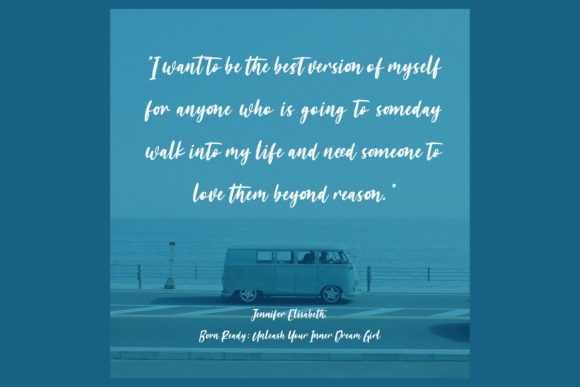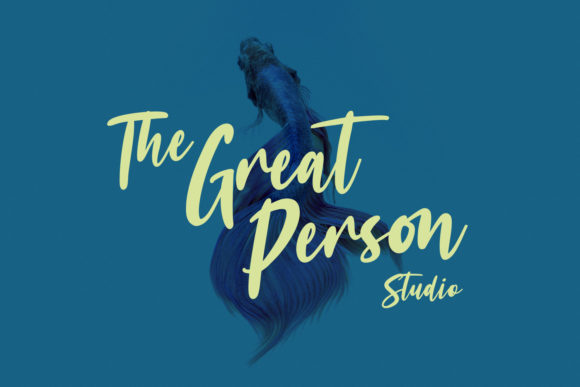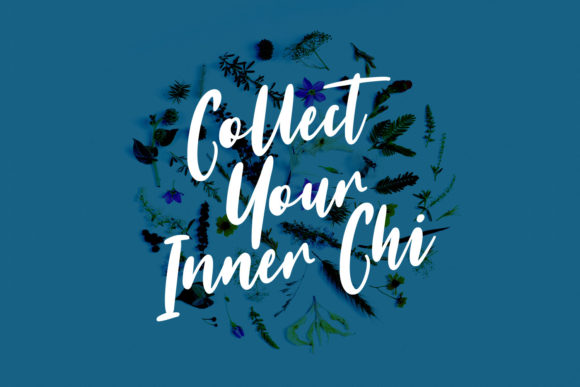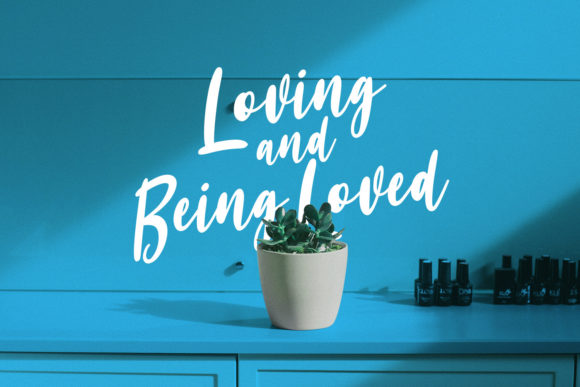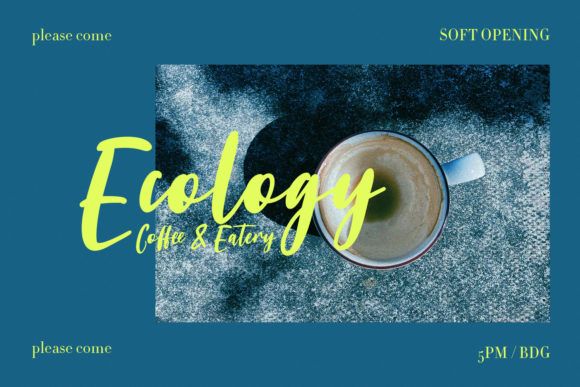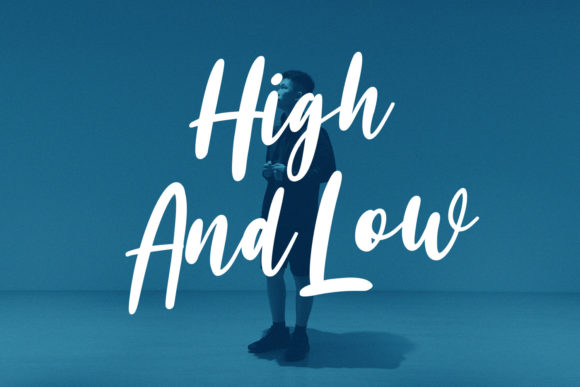
Discover the Perfect Script for Your Next Creative Project
Have you ever stared at a blank page, struggling to find the right words to bring your vision to life? You’re not alone. Many designers face this challenge daily, searching for the perfect font to elevate their creations. This is where the Hittoshira Font comes in – a luxurious and relaxed script font designed to add a touch of elegance to your work.
Neatly crafted and highly detailed, the Hittoshira Font is a valuable addition to any designer’s library. Its versatility makes it suitable for a wide range of topics, from creative writing to branding and marketing materials. Whether you’re working on a personal project or a commercial venture, this font has the potential to take your work to the next level.
Hittoshira Font Key Features
- Unique Characteristics: Hittoshira Font features a unique blend of traditional and modern design elements, with intricate details and ornate flourishes that set it apart from other fonts.
Hittoshira Font Review
I recently had the chance to work with the Hittoshira font, and I must say, it’s an interesting addition to any design project. Here are my thoughts on what works well and what doesn’t.
- Unique Style: The Hittoshira font has a distinct, hand-drawn feel that can add a touch of personality to your designs.
- Good Legibility: The font is quite legible, even at smaller font sizes, making it suitable for a variety of applications.
- Customization Options: The font comes with a range of weights and styles, giving you plenty of flexibility to experiment with different looks.
- Limited Cross-Platform Support: I found that the font didn’t render perfectly across all platforms and devices, which may be a concern for designers working on large-scale projects.
- Not Ideal for Large Text: While the font is legible, it can start to look a bit rough at larger font sizes, which may limit its use in certain contexts.
Overall, I’d say the Hittoshira font is a solid choice for designers looking to add some personality to their work. While it may have some limitations, its unique style and customization options make it worth considering. Just be sure to test it thoroughly across different platforms and devices to ensure the best results.
Hittoshira Font Practical Application Guide
Tips for Getting the Most Out of Hittoshira Font
Use Hittoshira Font for headings and titles to add a touch of elegance and sophistication to your designs.
Pair Hittoshira Font with a clean and simple sans-serif font for body text to create a visually appealing contrast.
Experiment with different font sizes and colors to create a unique and eye-catching visual hierarchy.
Hittoshira Font is ideal for:
Wedding invitations